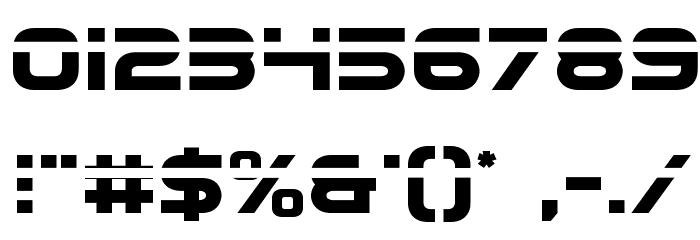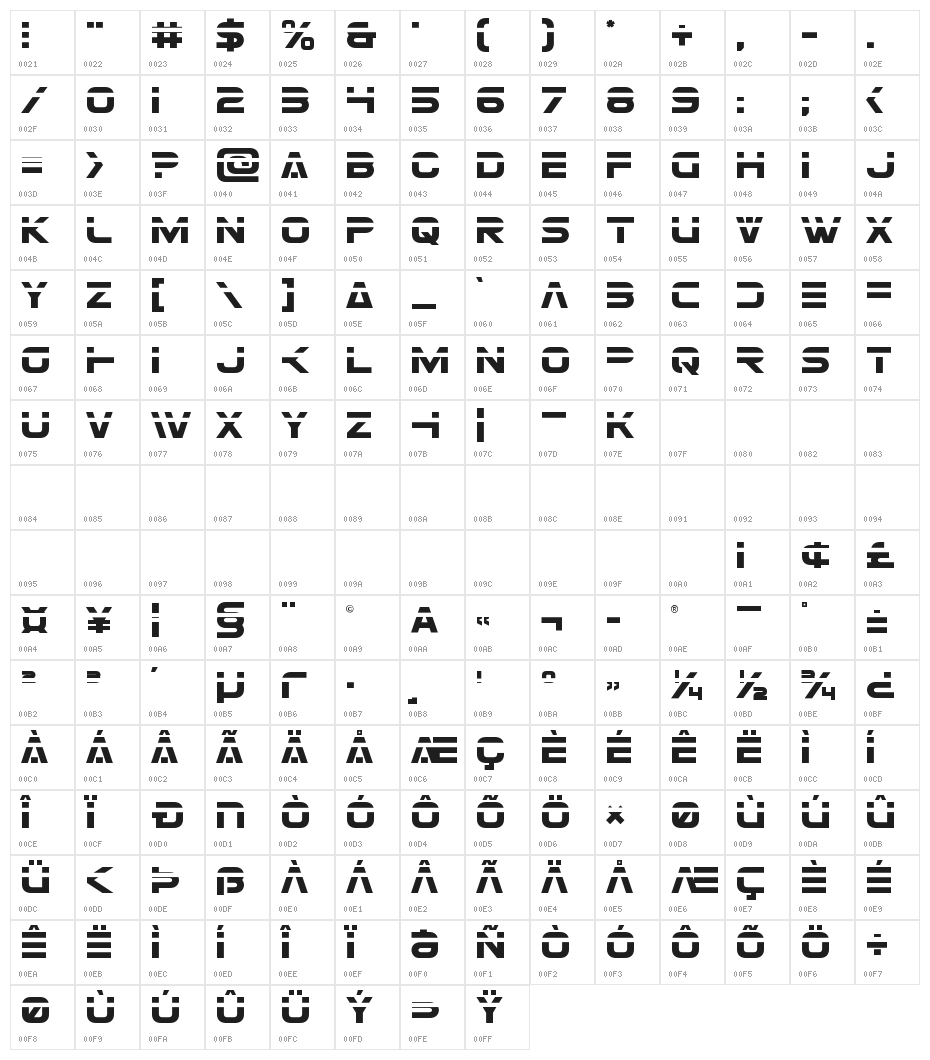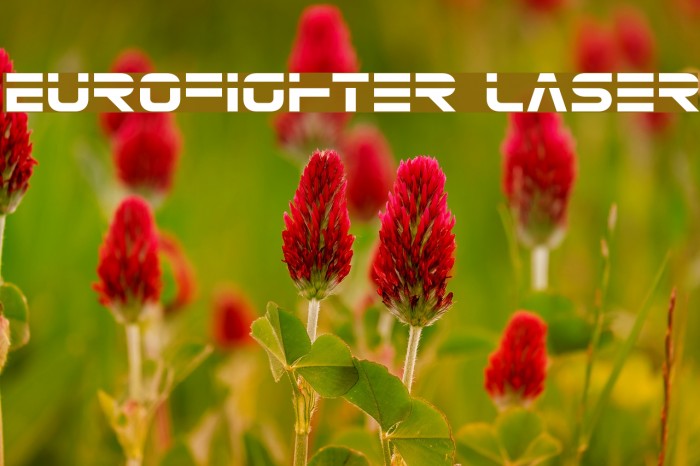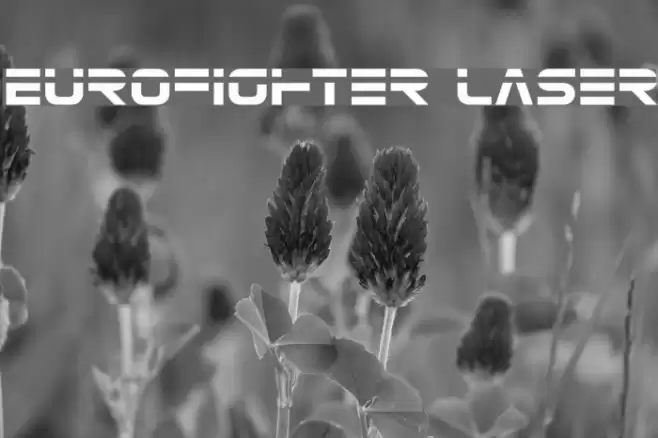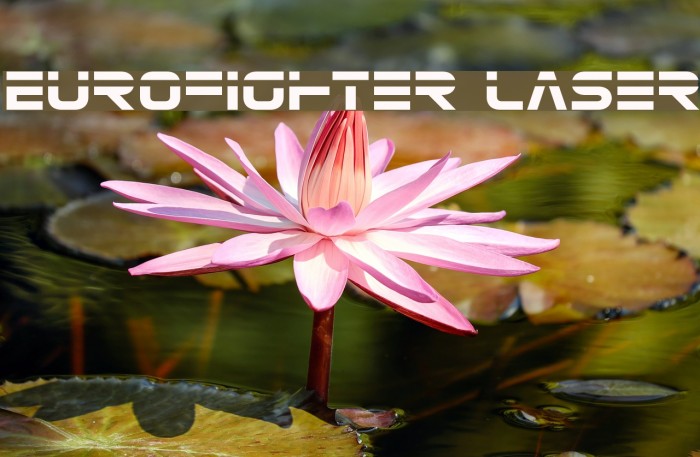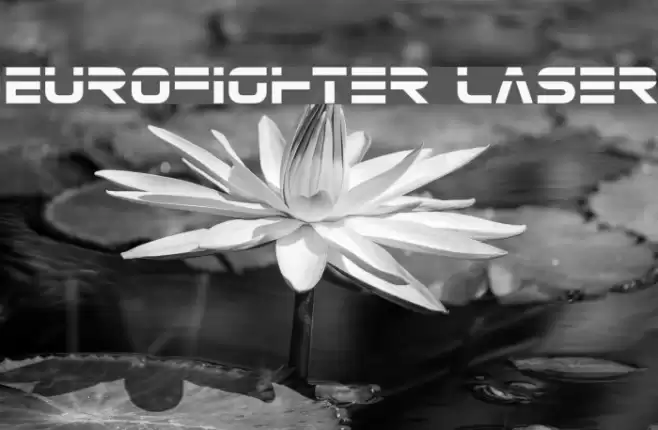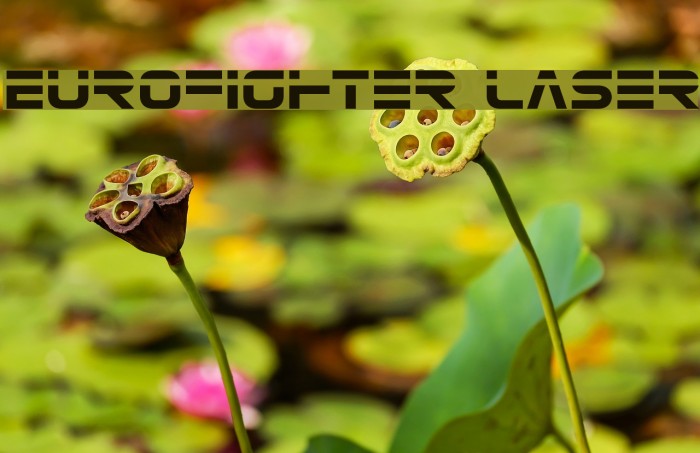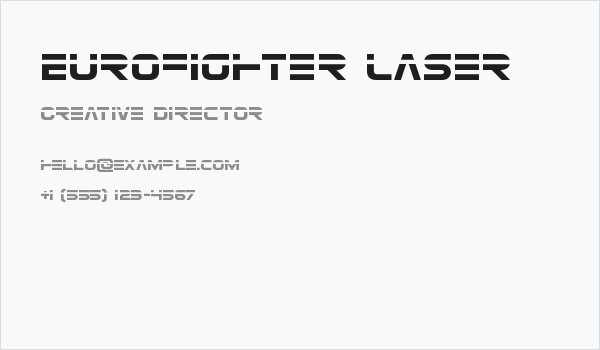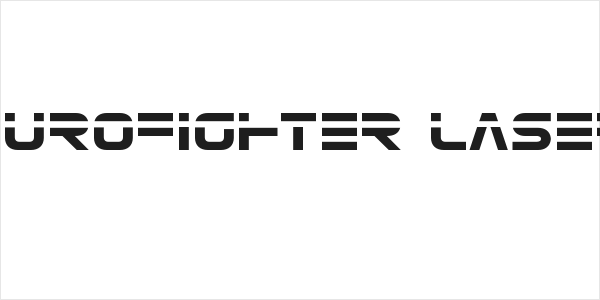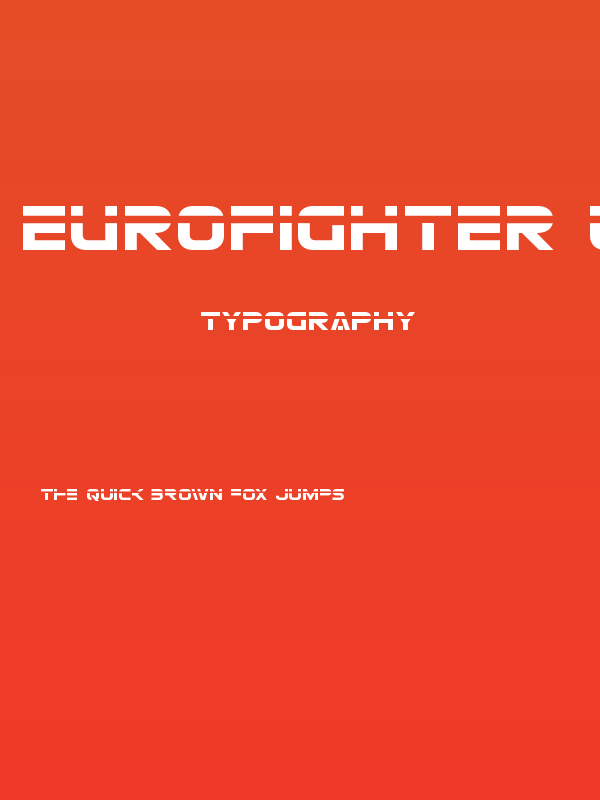
Eurofighter Laser Font
Eurofighter Laser Description
This font features a bold, futuristic design with a strong geometric structure. The characters are constructed with sharp angles and clean lines, creating a sense of precision and modernity. The uppercase and lowercase letters maintain a consistent style, with the lowercase mirroring the uppercase in form. The numerals and special characters follow the same design principles, ensuring uniformity across the typeface. The font's distinct cut-out sections and angular shapes give it a dynamic and tech-inspired appearance, making it ideal for projects that require a contemporary and edgy look.